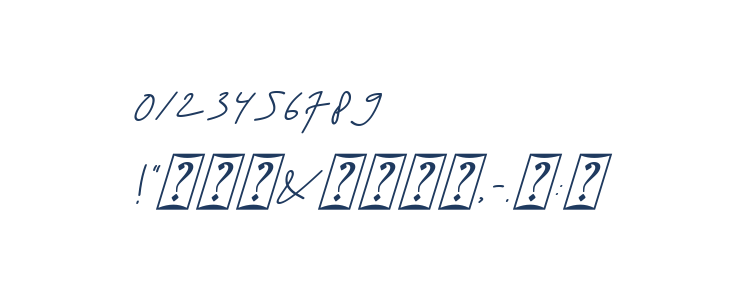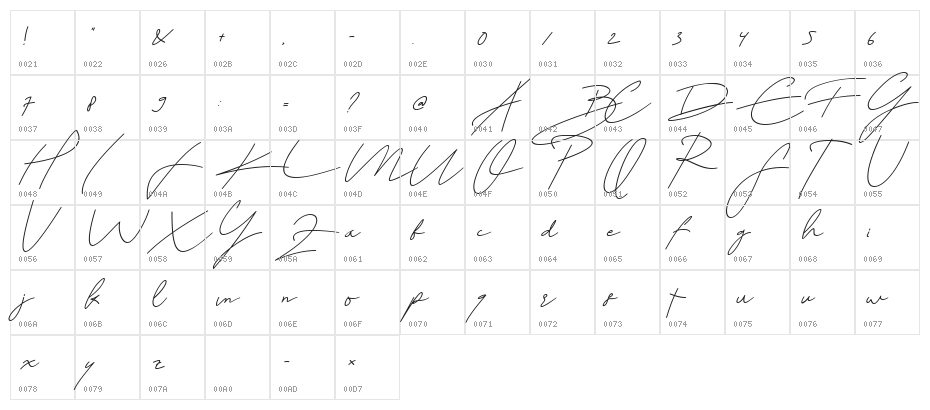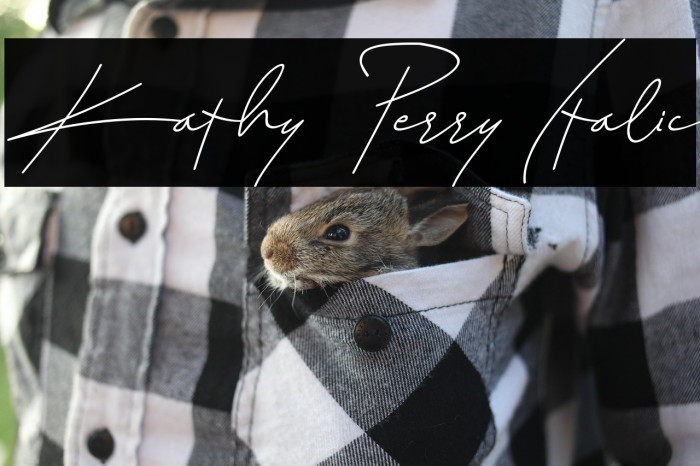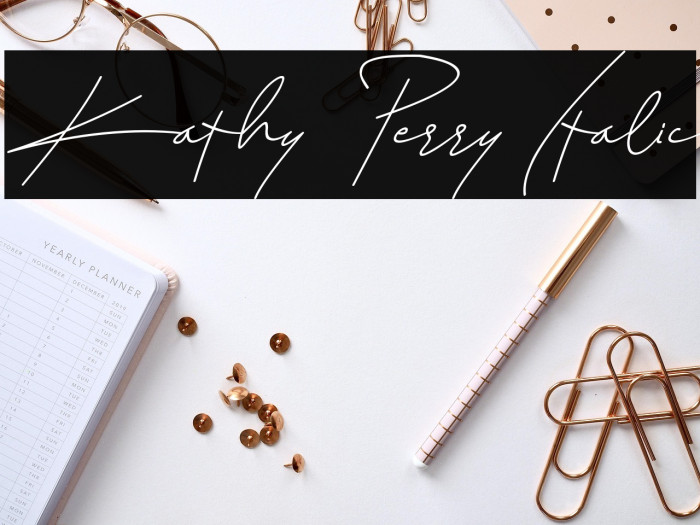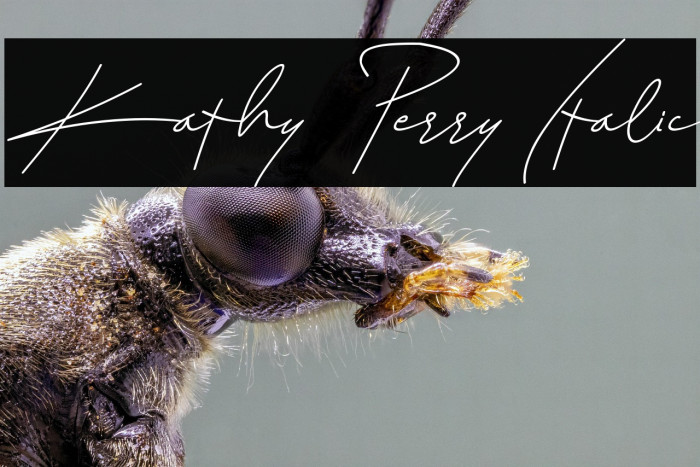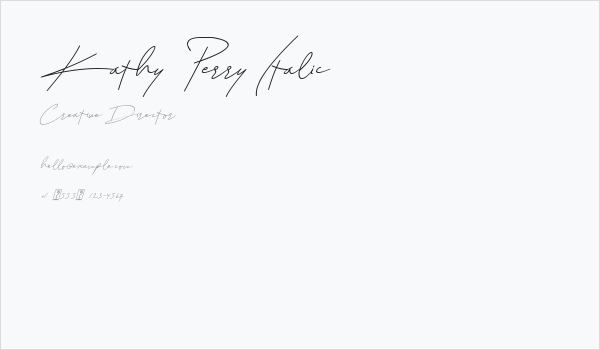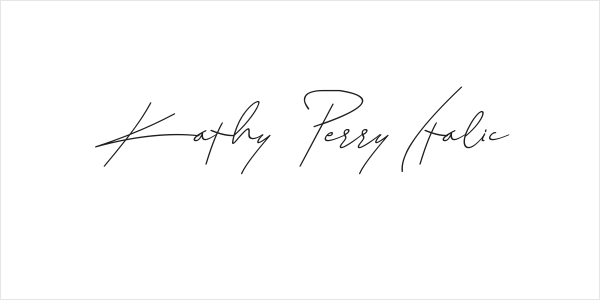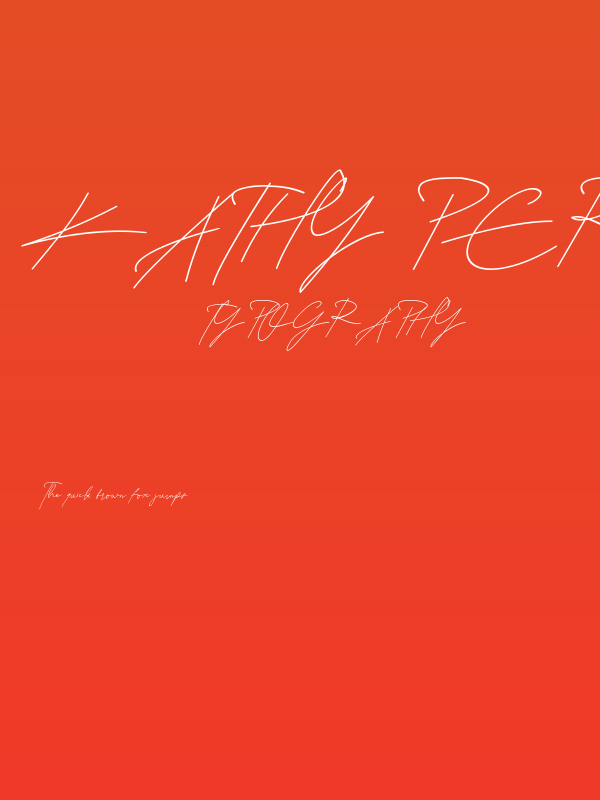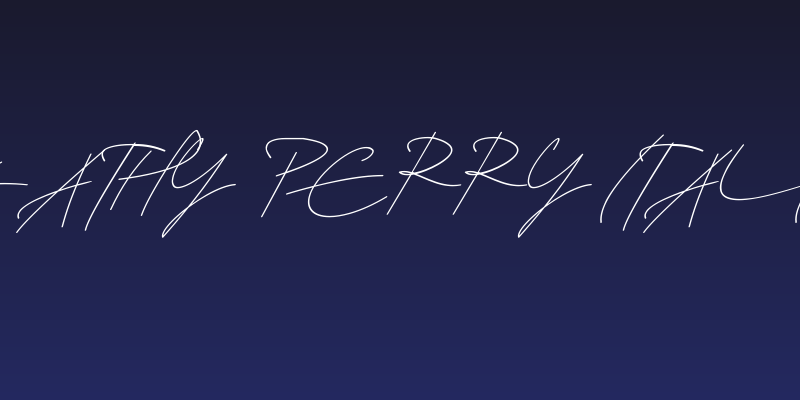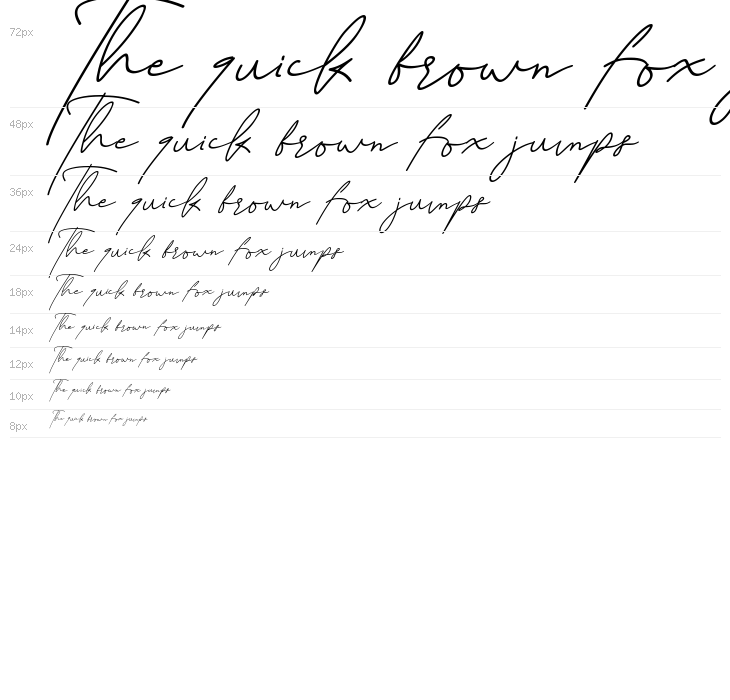
Kathy Perry Italic Font
Kathy Perry Italic Description
This font features an elegant, flowing script style that mimics natural handwriting. The letters are connected, creating a seamless and fluid appearance. The uppercase letters are slightly larger and more ornate, while the lowercase letters maintain a consistent and smooth flow. The numbers and special characters are designed to complement the overall script style, adding a touch of sophistication. The strokes are thin and delicate, enhancing the font's graceful and refined look.
| Use Case | Logos, Invitations, Personal branding |
| Proposed Projects | Ideal for wedding invitations, personal branding, greeting cards, and elegant logos. |